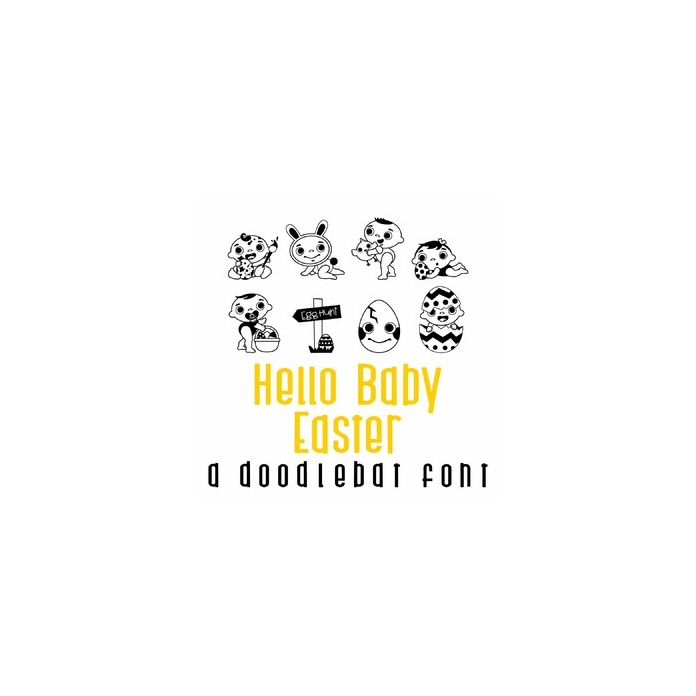
Hello Baby Easter Doodlebat Font
This adorable doodlebat font features 26 of the cutest babies perfect for scrap booking, cards, crafts, gifts, decor, planner stickers and more!